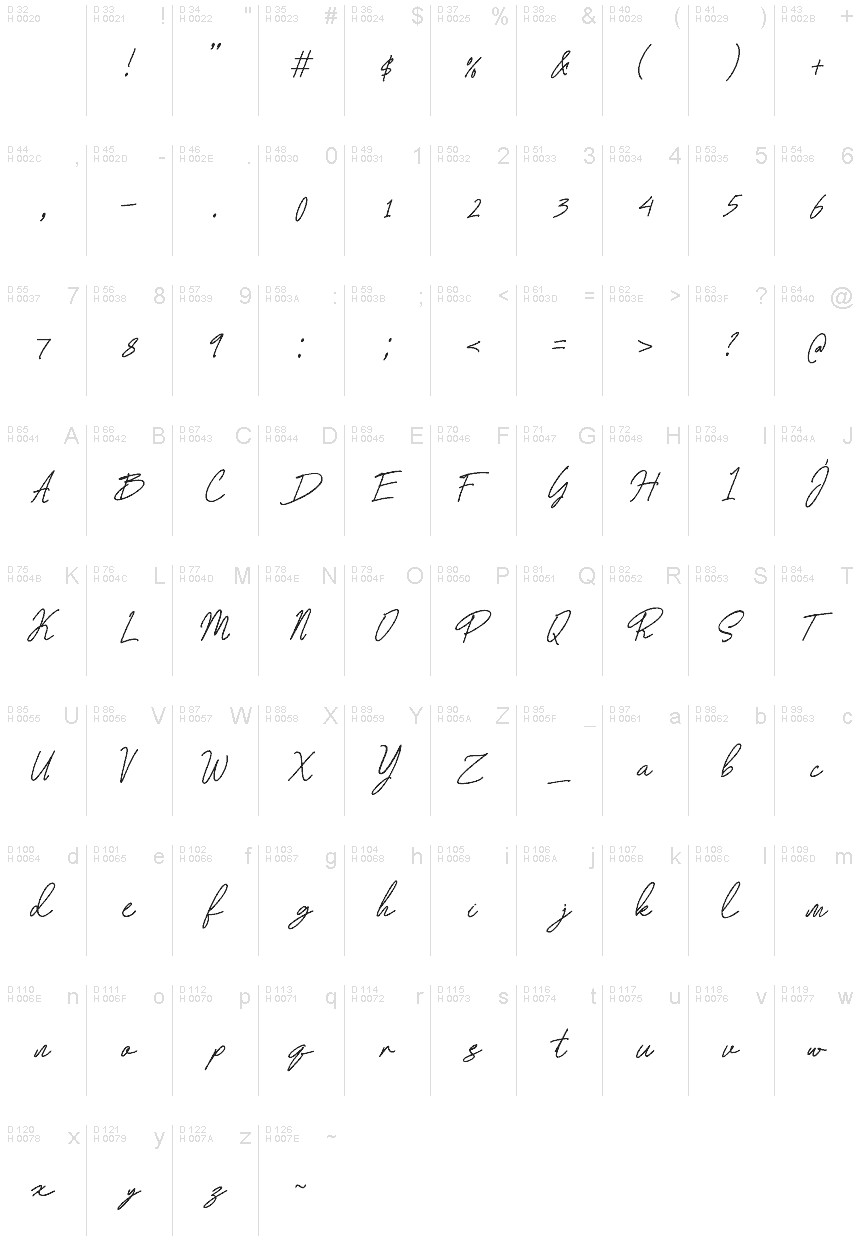
Purity
Purity font by Toni Studio is a light handwritten signature font designed to add elegance and expressiveness to your projects. Its stylish and contemporary flowing letters embody an exquisite tone that will translate into beautiful designs. A classic appearance and friendly character make it a free handwriting font with lovely typography.
Purity is an excellent fit for wedding invitations, greeting cards, magazines titles, covers, web headers, display projects, social media covers (such as Instagram), posters, T-shirt designs, branding projects, or other advertising purposes.